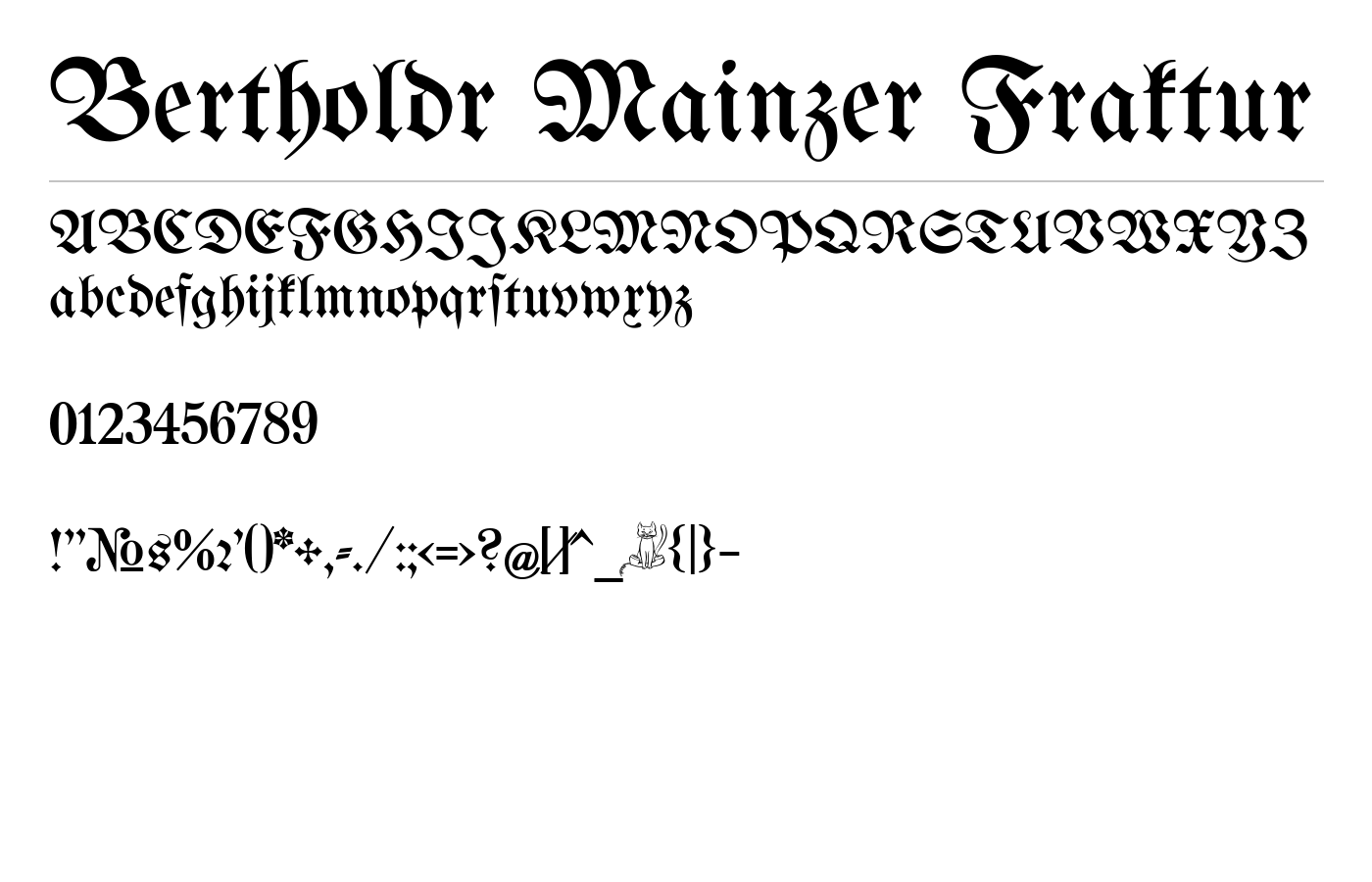
Bertholdr Mainzer Fraktur is a bold, blackletter serif font distinguished by its intricate, sharp strokes and high contrast between thick and thin lines, evoking a traditional Gothic aesthetic. Its dense, decorative letterforms and historical style make it ideal for vintage or culturally rich branding, editorial headlines, and artistic projects that seek a dramatic and authoritative tone. This font shines in contexts where a strong, classical character is desired, such as logos, posters, or packaging with a heritage or formal appeal.
About Bertholdr Mainzer Fraktur Font
| Designer | Peter Wiegel, original typeface by Carl Albert Fahrenwaldt 1901 |